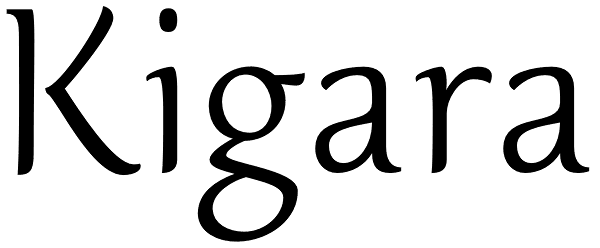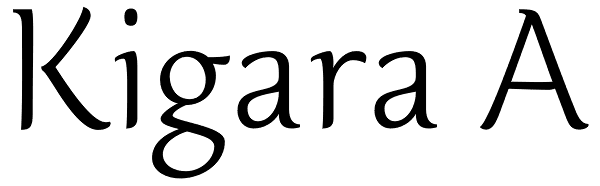
Kigara
Kigara was Elena’s first attempt at designing a text typeface. The result is not exactly a conventional book face. Strongly influenced by handwriting, Kigara is best suited for short texts set at medium to large sizes. However, its open letter...